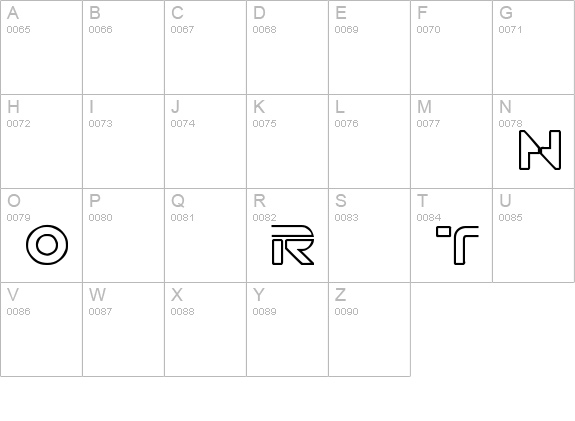
TRON muestre CINE1 font is a stunning display font that captures the essence of futuristic technology. Its sleek and modern design is perfect for adding a touch of high-tech sophistication to any project. With its sharp lines and geometric shapes, TRON muestre CINE1 font exudes a sense of precision and efficiency. The letters are meticulously crafted to create a visually striking display that commands attention. What sets TRON muestre CINE1 font apart is its versatility. Whether you're designing a movie poster, a tech blog logo, or a video game title, this font has the ability to elevate your project to the next level. But what makes TRON muestre CINE1 font even more appealing is that it is freely available to download at FontsMarket.com. You no longer have to worry about breaking the bank to access a high-quality font that perfectly suits your needs. With just a few clicks, you can add this cutting-edge font to your collection and start creating stunning designs. In conclusion, TRON muestre CINE1 font is a must-have for anyone looking to infuse their designs with a touch of futuristic elegance. Its sleek lines, geometric shapes, and overall modern aesthetic make it a standout choice for a wide range of projects. And best of all, it can be yours for free at FontsMarket.com. So why wait? Download TRON muestre CINE1 font today and watch your designs come to life with a touch of high-tech allure.